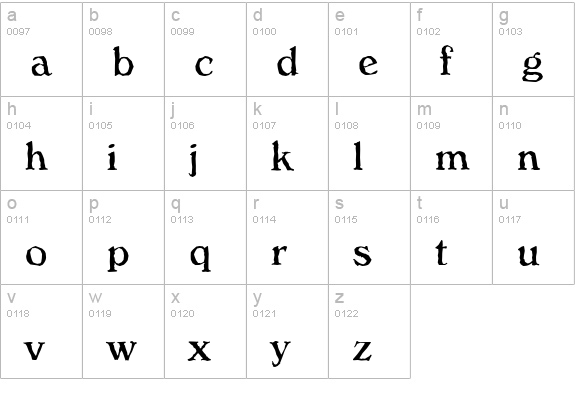
VeronaAntique-Regular is the standard, neutral variant in the VeronaAntique typeface family \xE2\x80\x94 well suited to general body text, paragraphs, and standard typographic work.
VeronaAntique-Regular is a timeless and elegant font that exudes a sense of classic sophistication. With its ornate details and vintage charm, this typeface is perfect for adding a touch of old-world elegance to any design project. The intricate serifs and graceful curves of VeronaAntique-Regular make it a versatile choice for a variety of applications, from wedding invitations to branding materials. Best of all, VeronaAntique-Regular is available for free download at FontsMarket.com. Whether you're a seasoned designer looking to add a new font to your collection or a creative enthusiast eager to experiment with typography, VeronaAntique-Regular is a must-have addition to your toolkit. Embrace the beauty and timelessness of this stunning font and elevate your designs with its classic appeal. Download VeronaAntique-Regular today and bring a touch of antique charm to your next project.